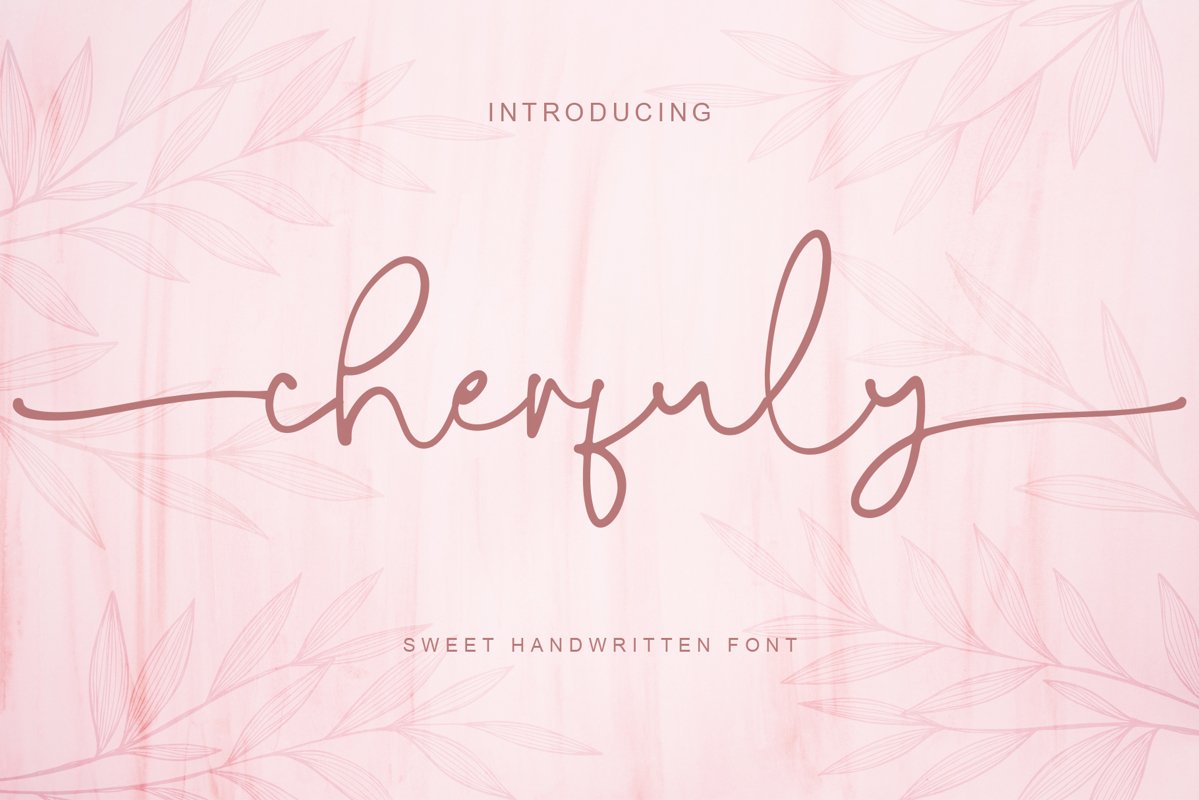
Cherfuly
Cherfuly is a handwritten script font with a simple and classy style, this font is great for your next creative projects such as watermark on photography, quotes, album cover, logo, business card, and many other design project. From business cards to photo watermarks, Cherfuly is here to elevate your work to the highest level.Cherfuly comes with uppercase letters, lowercase letters, numbers, punctuation, ligature, beginning and ending swash and multi lingual supportWhat's inclued :